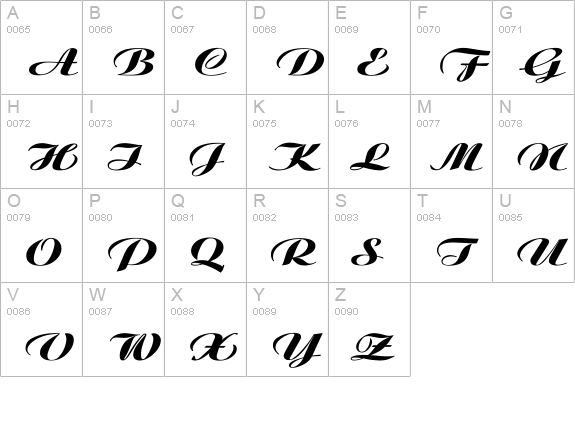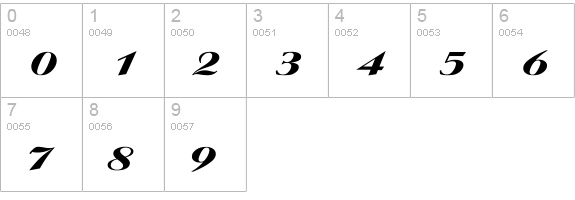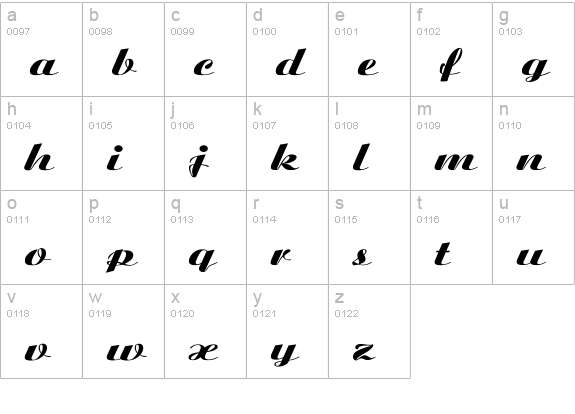
Ariston Wd Font Details
Ariston Wd font is a modern and elegant typeface that exudes sophistication and style. With its clean lines and sleek design, this font is perfect for a wide range of projects, from branding to editorial design. The versatility of Ariston Wd font makes it a go-to choice for designers looking to add a touch of class to their work. The best part? Ariston Wd font is completely free to download at FontsMarket.com. This means you can use this beautiful font in your projects without breaking the bank. Whether you're working on a personal project or a client's design, Ariston Wd font is sure to elevate your work to the next level. Don't miss out on the opportunity to enhance your designs with the timeless elegance of Ariston Wd font. Download it for free today at FontsMarket.com and take your projects to new heights.